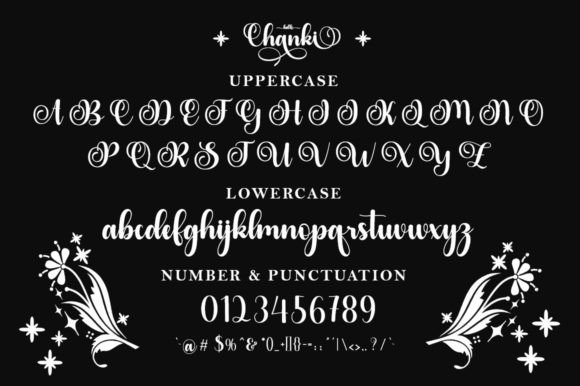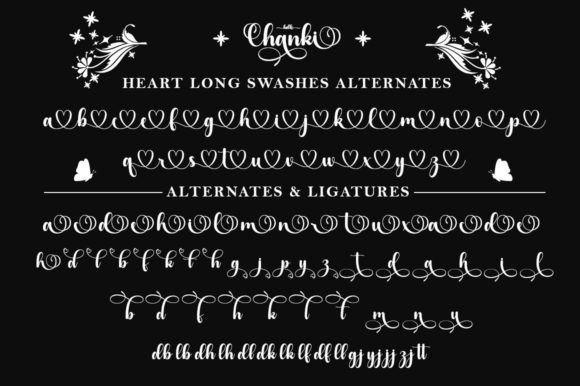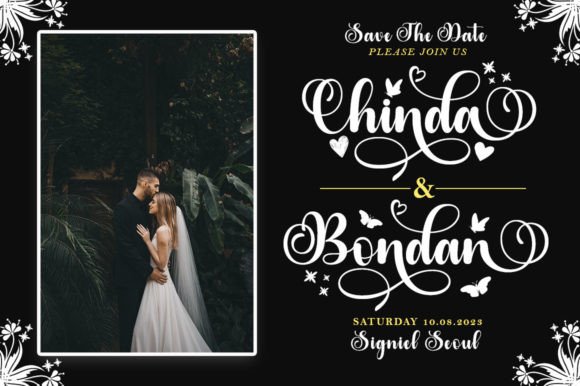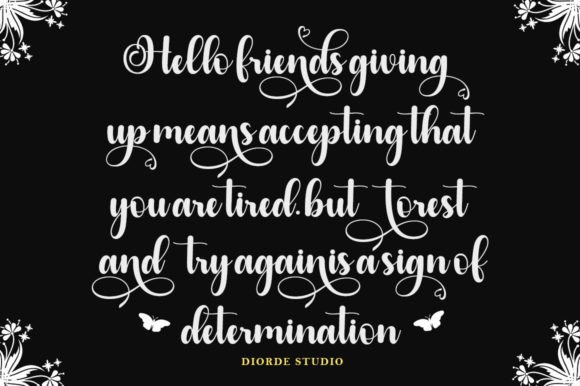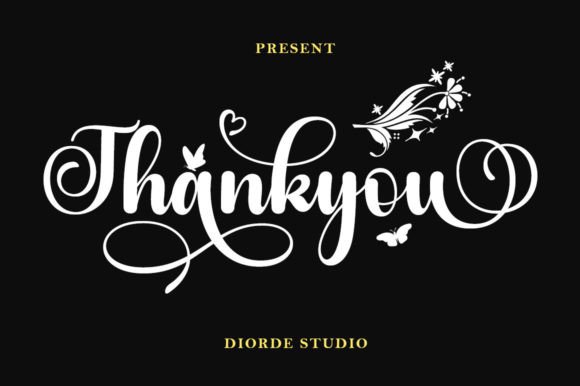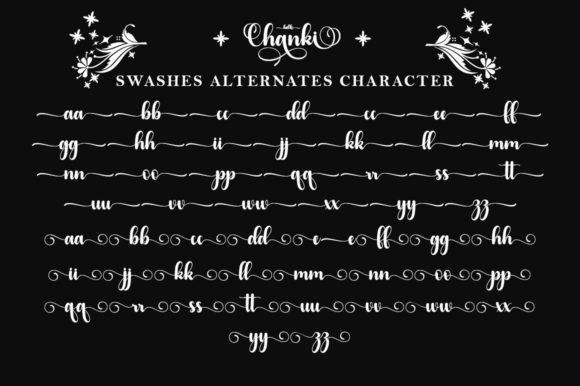
About Hello Chanki Font
The Hello Chanki Font Download is a graceful and modern calligraphic typeface that blends elegance with versatility. Designed to create beautiful rhythm and flow in every letter, this font captures the refined charm of classic calligraphy while keeping a fresh, modern edge. With its delicate yet confident style, Hello Chanki is perfect for designers seeking a script that adds sophistication to every project.
Whether you are crafting wedding invitations, designing branding materials, or working on digital artwork, this calligraphic font offers a touch of elegance that elevates your creations. Its smooth curves and balanced strokes make it easy to read while maintaining an artistic flair.
Features of Hello Chanki Font
The Hello Chanki Font Download comes with features that make it a must-have in any designer’s toolkit:
Modern calligraphy style with graceful flow
Elegant curves and strokes that enhance readability
Professional quality suitable for print and digital projects
Versatility for both formal and creative applications
PUA encoding, giving easy access to all swashes and glyphs
Best Uses for Hello Chanki Font
This font adapts effortlessly to various design needs. Some of the most popular uses of the Hello Chanki Font Download include:
Wedding invitations and stationery – Add charm and elegance to invitations, place cards, and menus
Branding and logos – Build a professional identity with a stylish calligraphy touch
Greeting and thank-you cards – Create heartfelt messages with a handwritten feel
Web graphics and social media – Design captivating posts and banners that stand out
Posters and quotes – Highlight meaningful text with artistic beauty
Packaging and product labels – Bring a luxurious aesthetic to branding designs
Why Choose Hello Chanki Font
The beauty of the Hello Chanki Font Download lies in its ability to balance tradition with modernity. Many calligraphy fonts lean heavily on ornate decoration, making them difficult to use across different formats. Hello Chanki, however, maintains a clean design that remains elegant yet practical, making it ideal for both casual and professional applications.
By adding Hello Chanki to your collection, you gain a font that conveys sophistication without sacrificing readability. Its timeless charm ensures that it works equally well in classic event stationery or modern brand identities.
The Hello Chanki Font Download is a stylish, modern calligraphy script designed for designers, creatives, and brands that want to bring elegance into their work. With its flowing rhythm, graceful strokes, and versatile usability, it can transform any project into a classy, polished masterpiece.